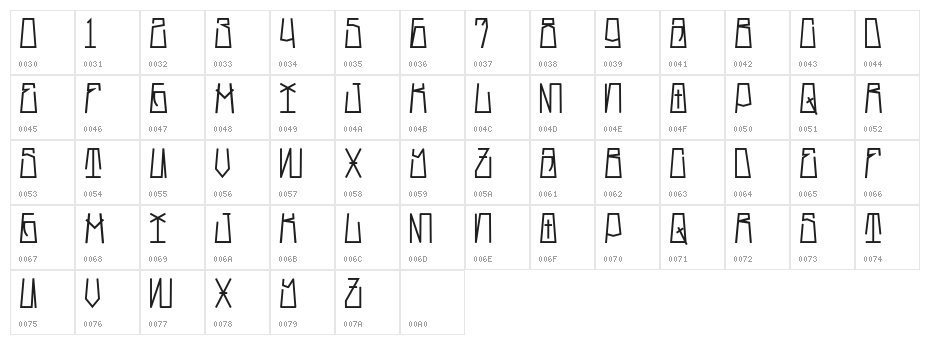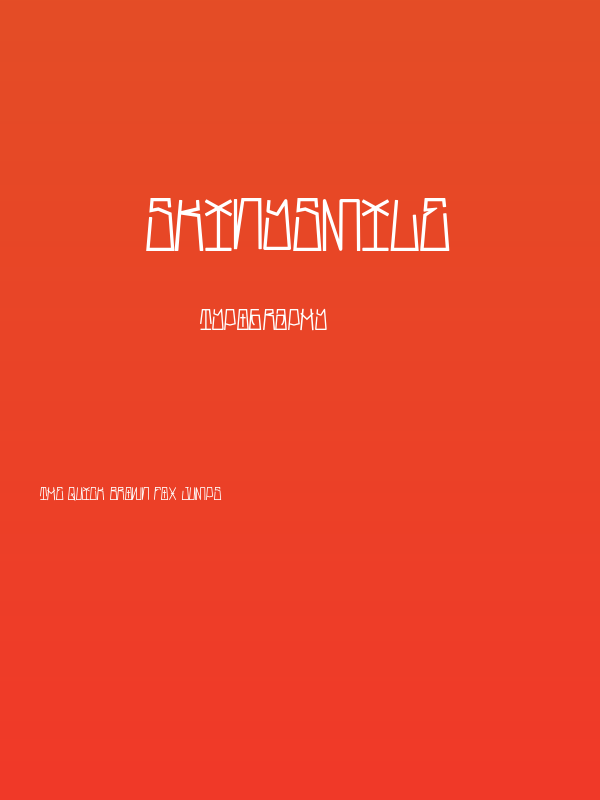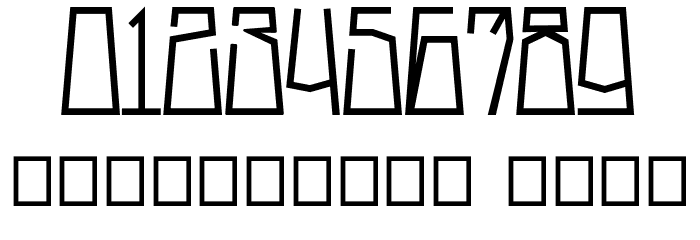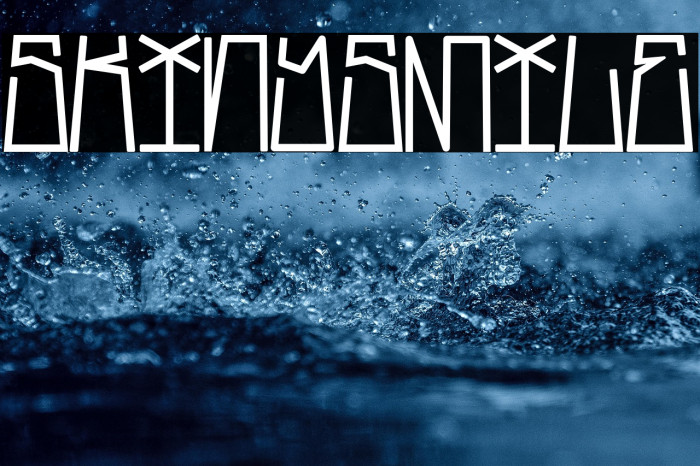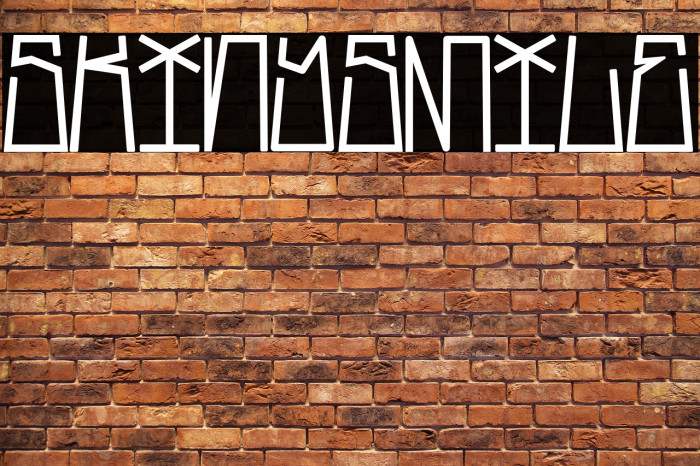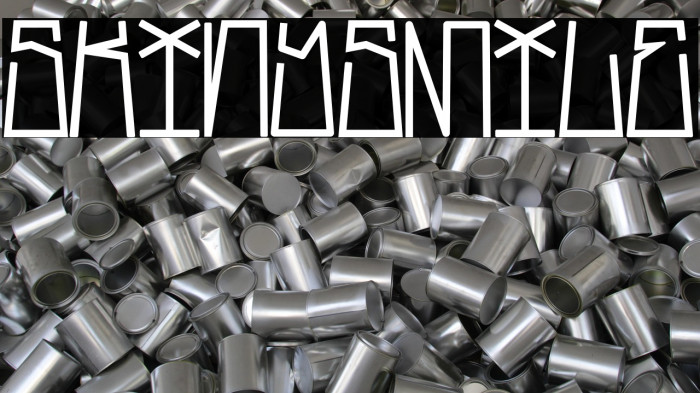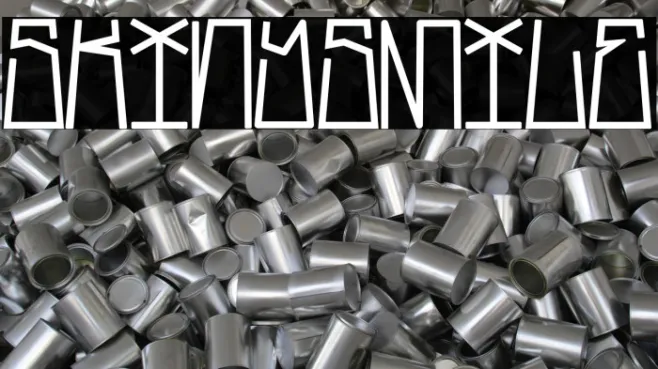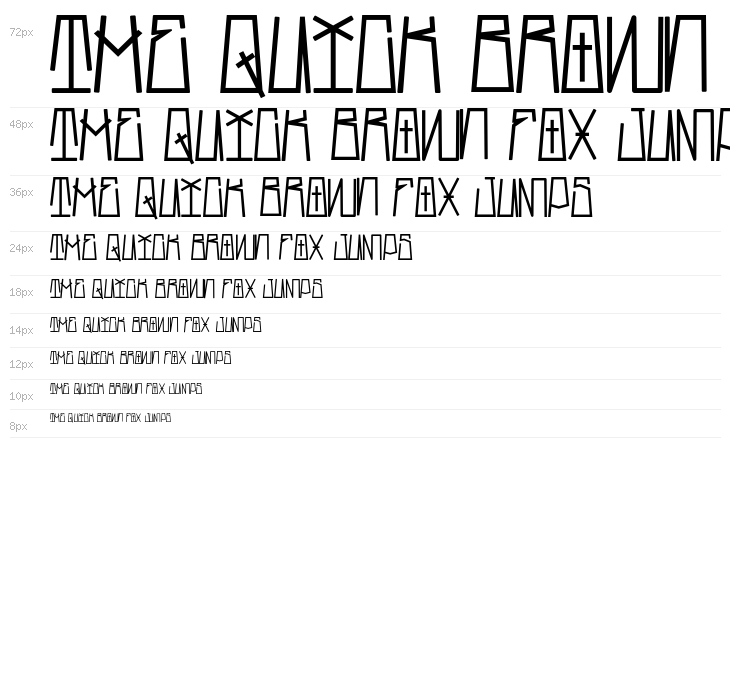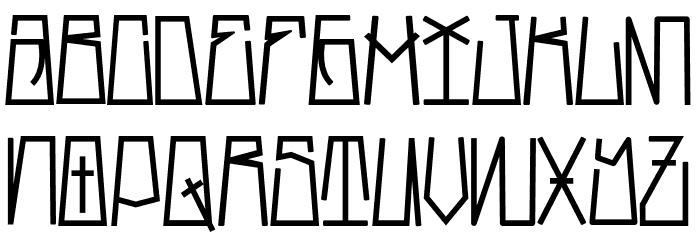
SkinySmile Font
SkinySmile Description
This font features a unique, angular design with a geometric aesthetic. Each character is composed of straight lines and sharp angles, creating a modern and edgy appearance. The uppercase and lowercase letters share a similar structure, emphasizing uniformity and consistency. The numbers and special characters maintain the same angular style, ensuring a cohesive look across all elements. The font's distinct style makes it stand out, with a bold presence that commands attention. Its unconventional design is perfect for projects that require a modern, artistic touch.
| Proposed Projects | Ideal for branding, posters, album covers, and modern art projects. |